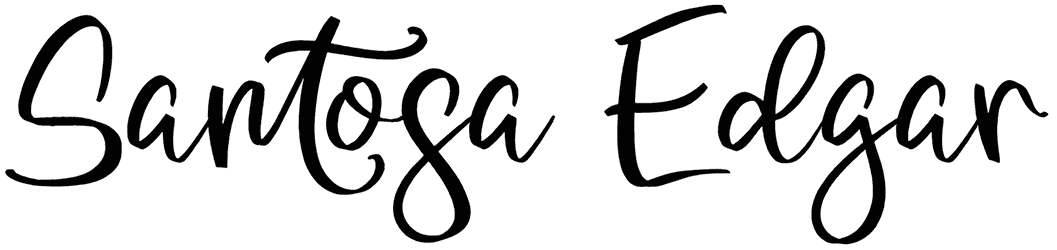
Santosa Edgar Font
Santosa Edgar gives a unique and personal touch to any project and helps you stand out. There is something special about the imperfections and features of this handwritten font that cannot be replicated with a digital font.
Each letter has a unique character that makes the audience feel that each word is carefully crafted. Whether creating a wedding invitation, designing a logo for your business, or adding a little flair to your social media posts, using Santosa Edgar can get your creativity flowing.